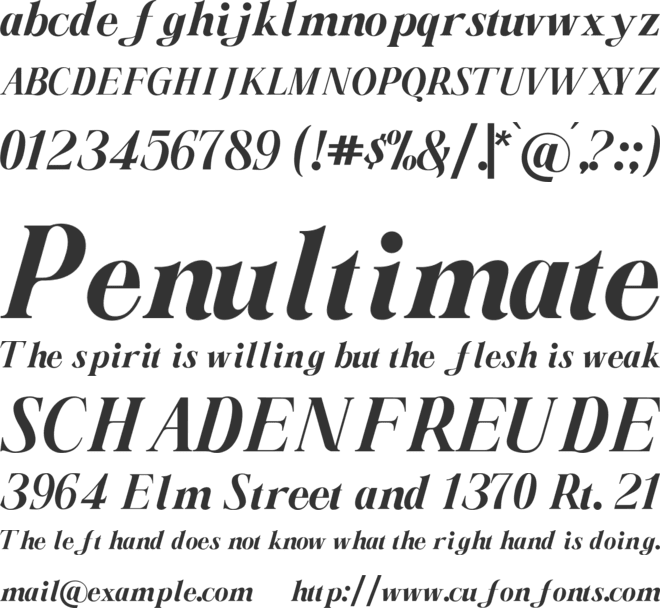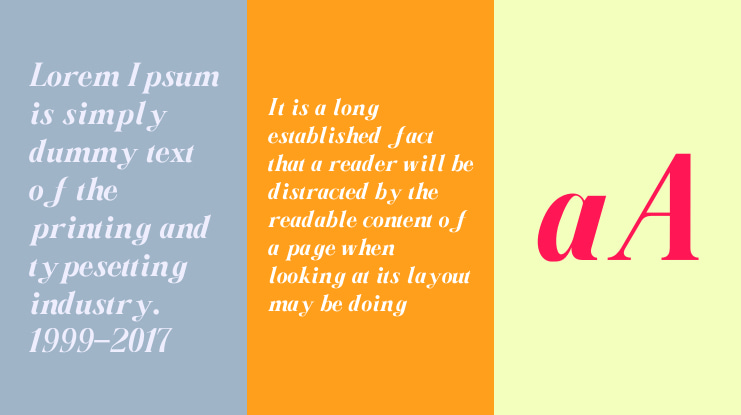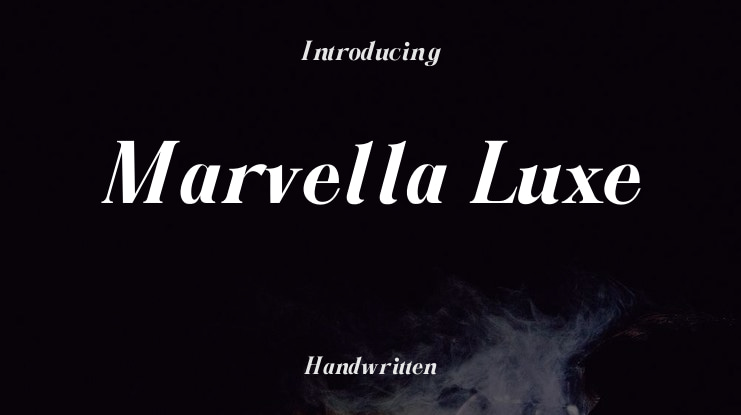
Marvella Luxe Font
Marvella Luxe, an exquisitely elegant display typeface crafted for designers who seek sophistication with a bold, modern twist. This font features stunning ligatures, refined curves, and a luxurious flow that elevates any visual composition. With its graceful letterforms and stylish spark-like accents, Marvella Luxe is perfect for branding, editorial layouts, fashion projects, packaging, logos, and high-end visual identities.
Marvella Luxe font preview